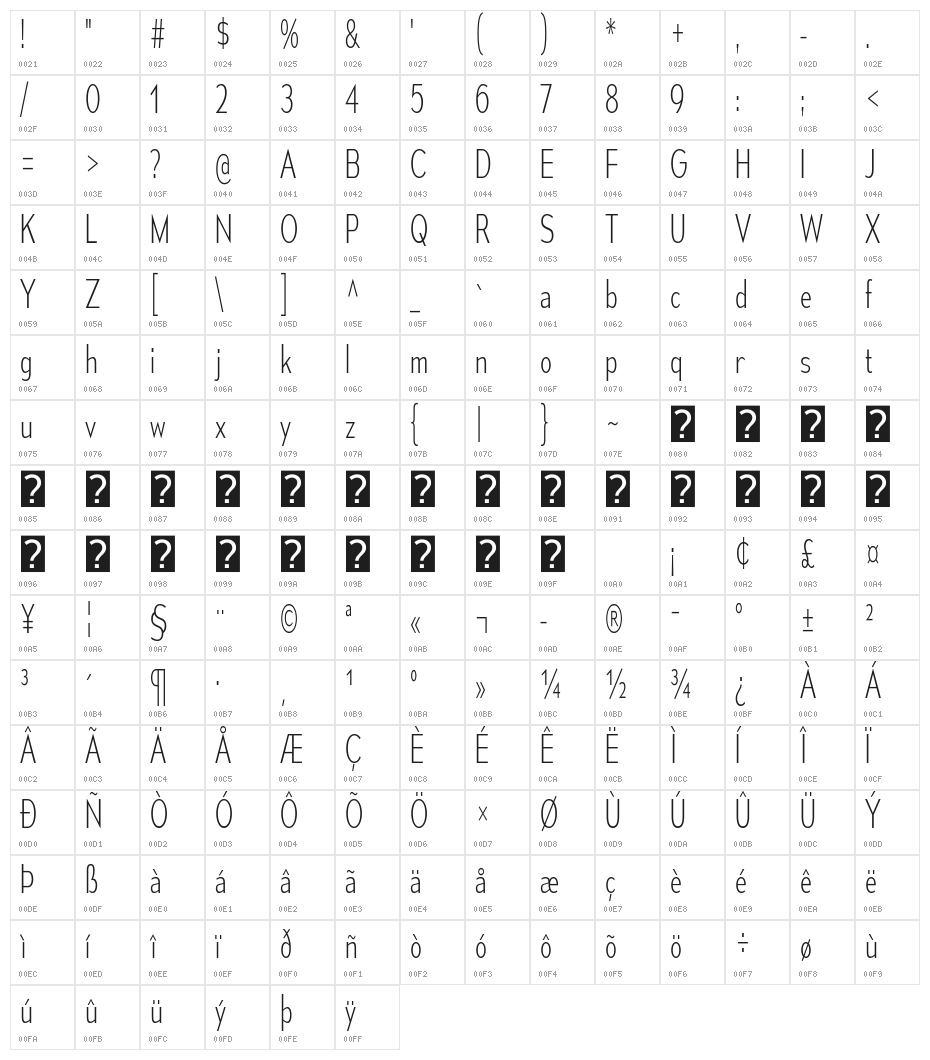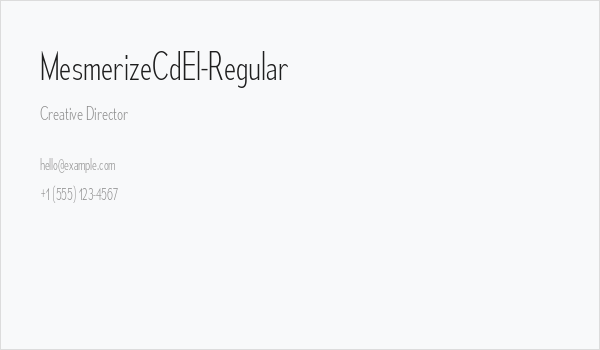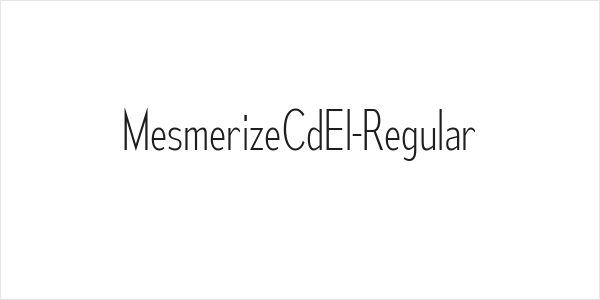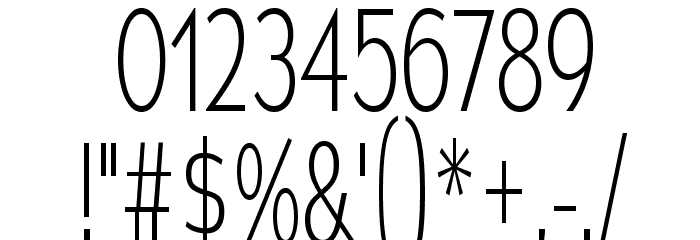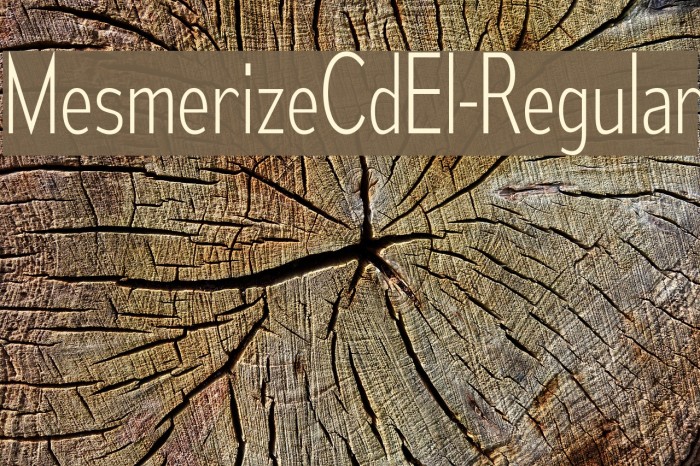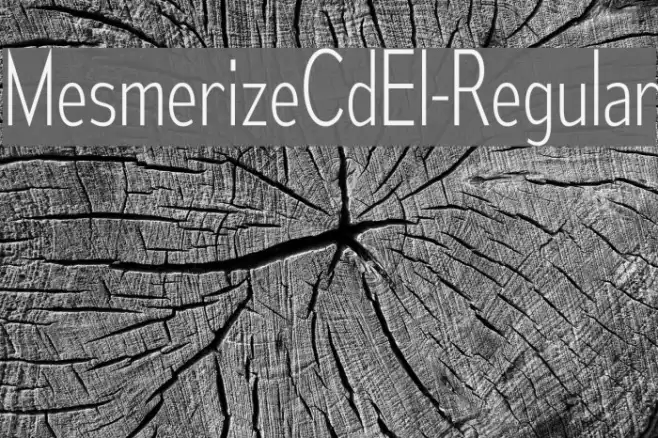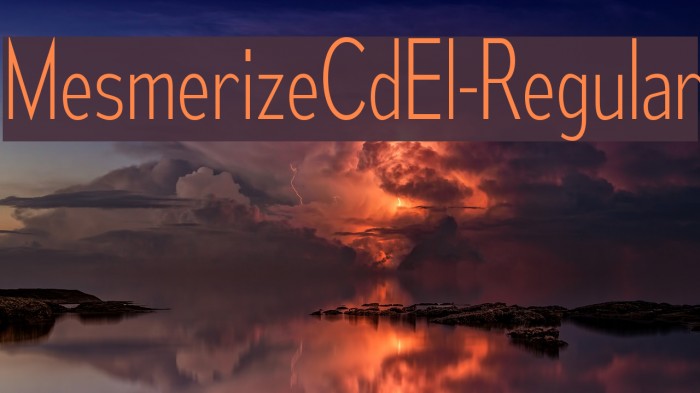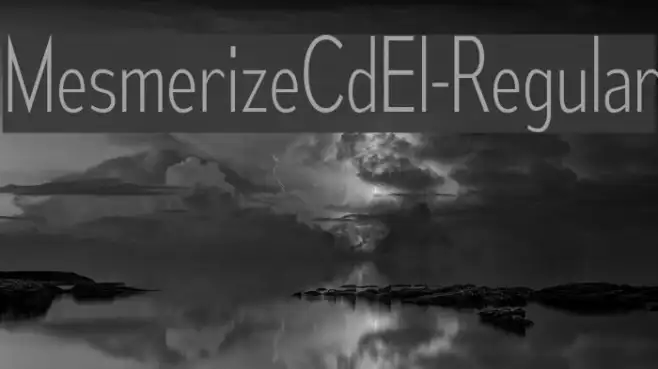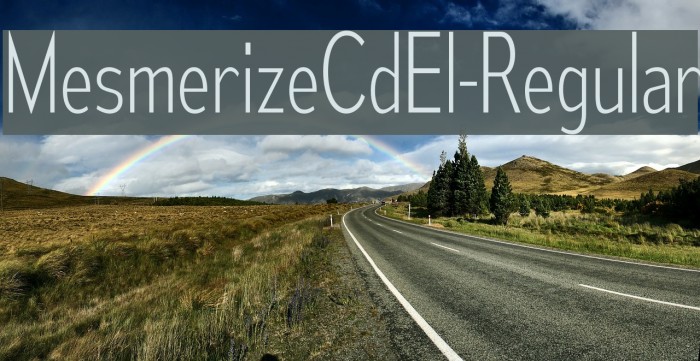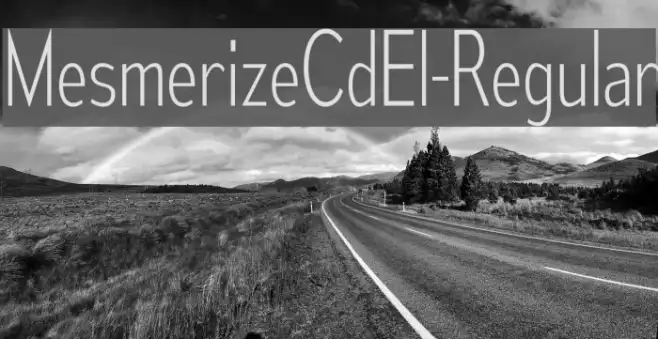
MesmerizeCdEl-Regular Font
MesmerizeCdEl-Regular Description
This font features a clean and modern sans-serif style with a condensed width, making it ideal for space-efficient text. The characters are uniformly designed with a consistent stroke width, providing a sleek and professional appearance. The uppercase letters are tall and commanding, while the lowercase letters maintain a balanced and harmonious look. The numerals are clear and easily distinguishable, enhancing readability. Special characters are well-integrated, ensuring versatility across various applications. The overall design is minimalistic, emphasizing clarity and functionality.
| Proposed Projects | Ideal for corporate branding, editorial design, web interfaces, and signage where space is limited. |